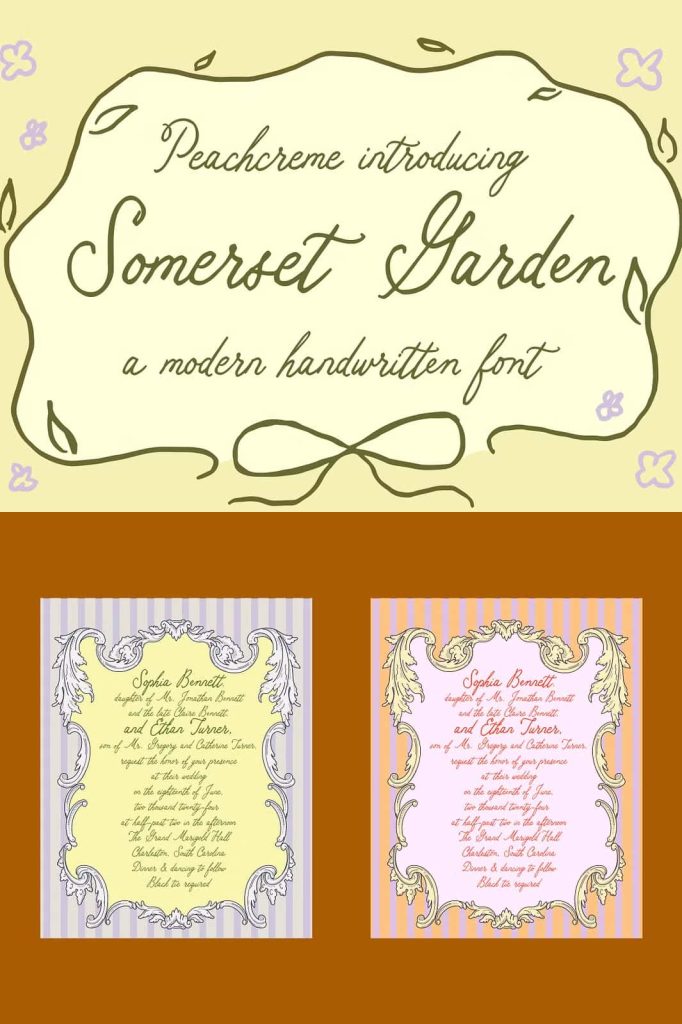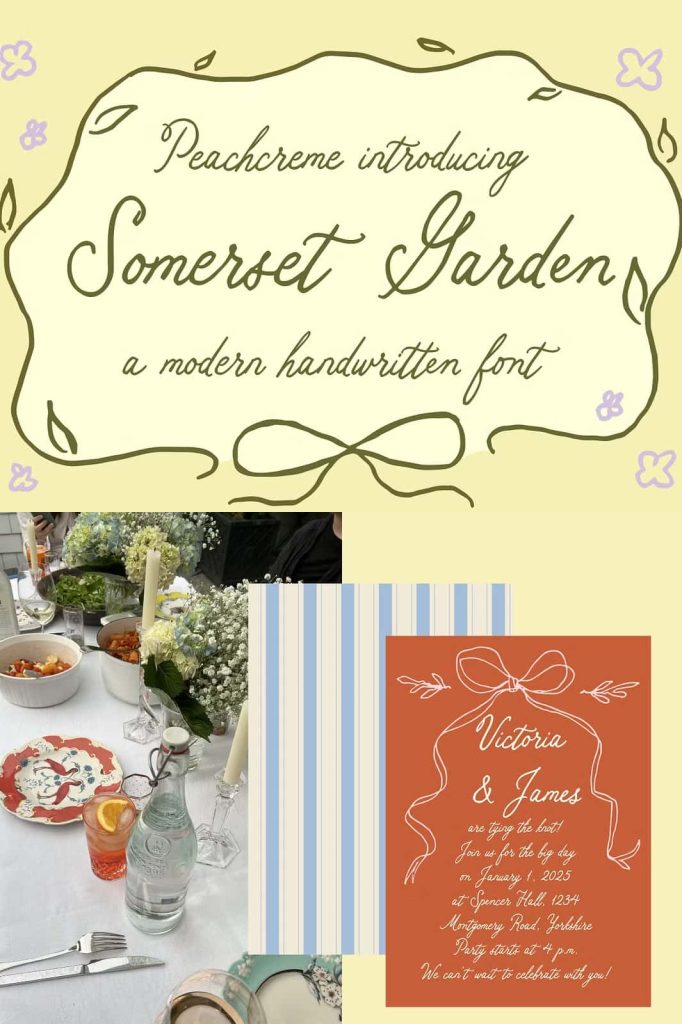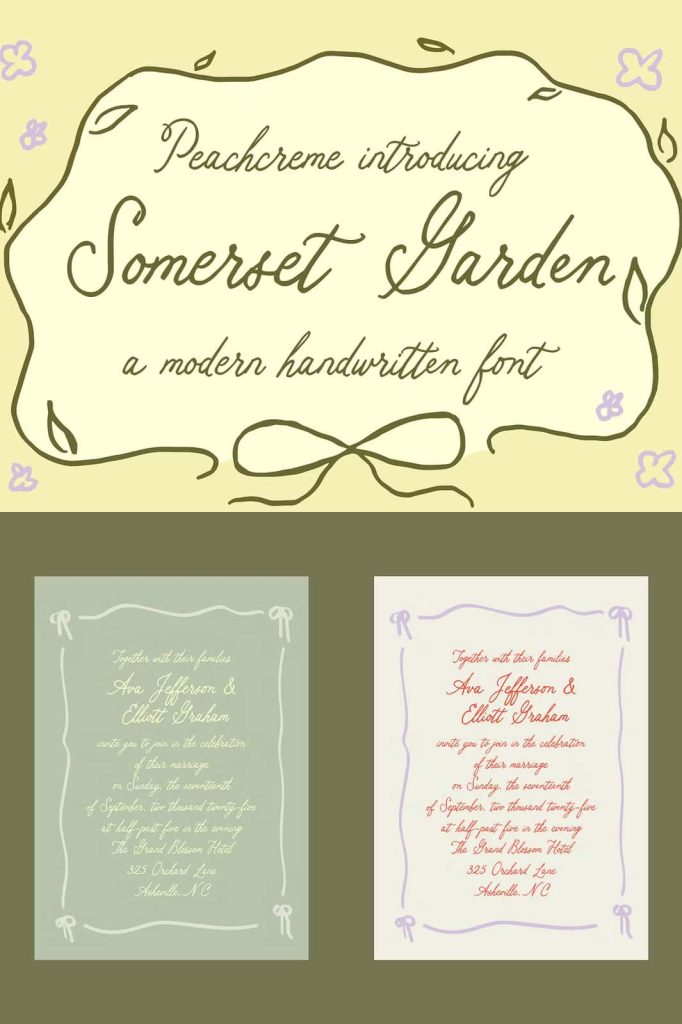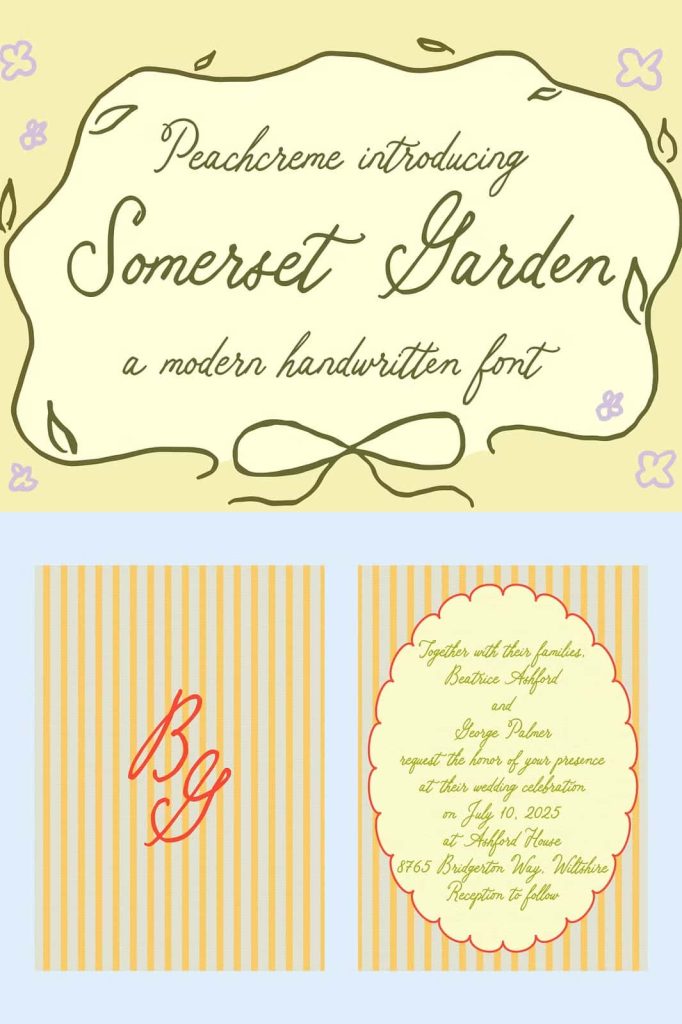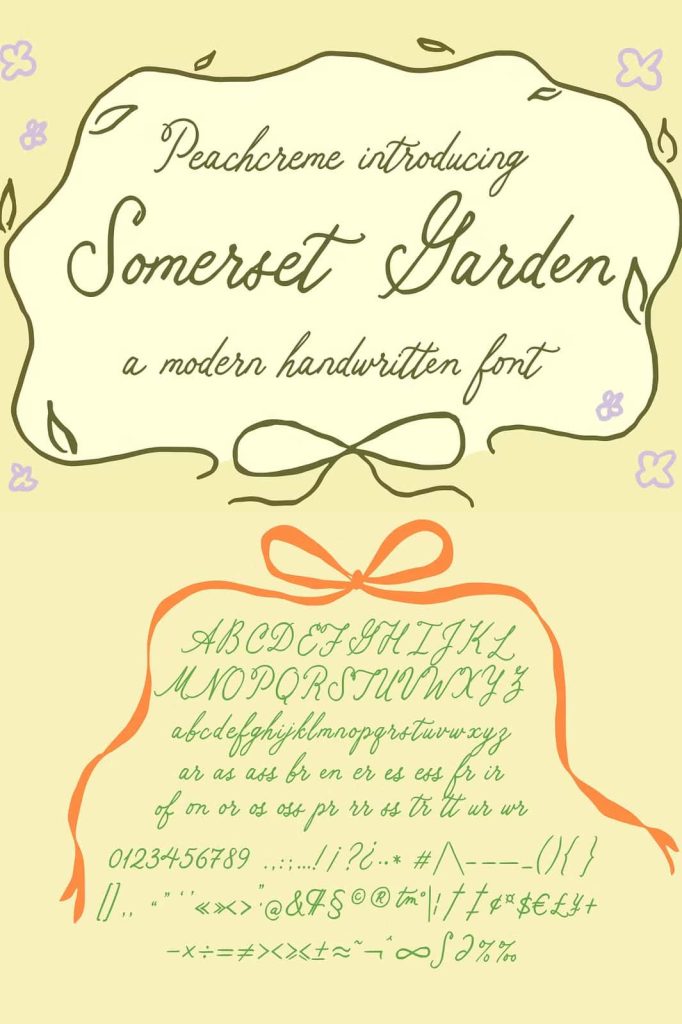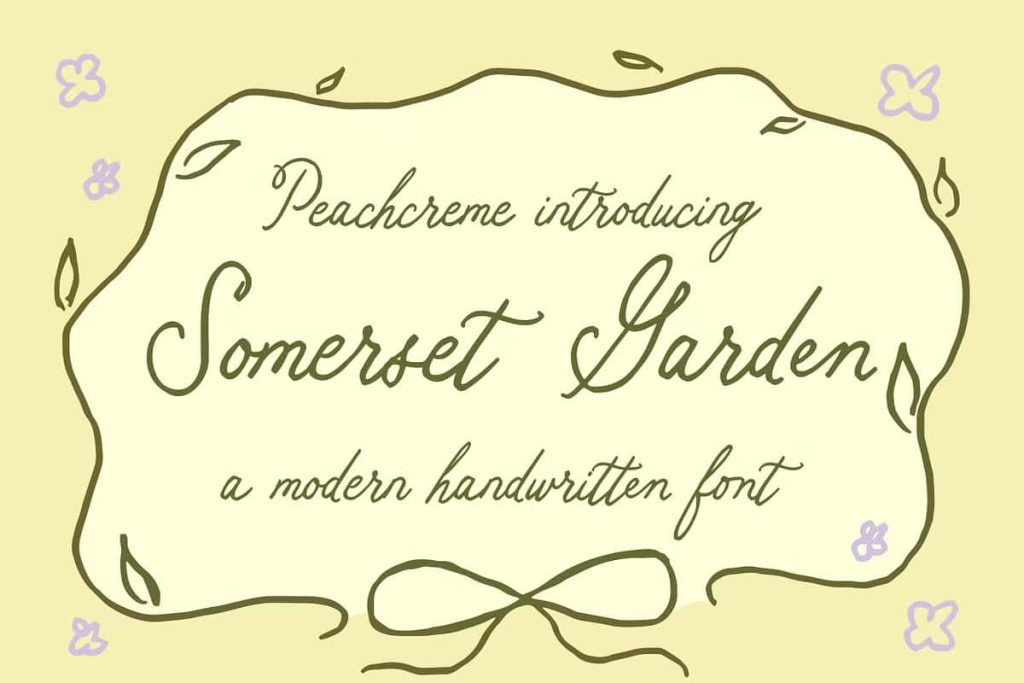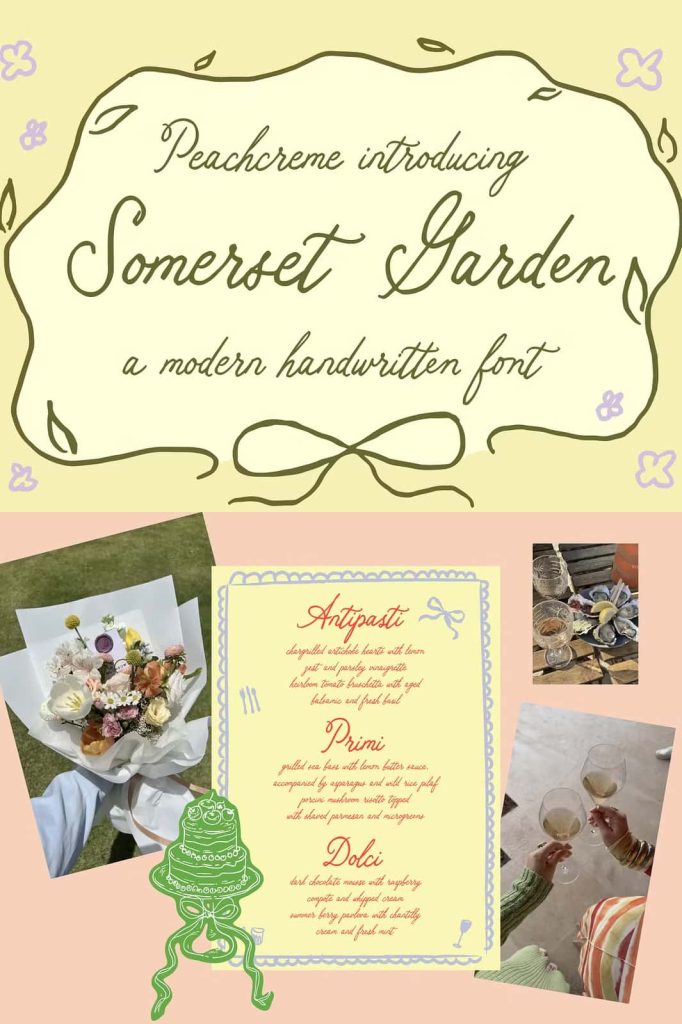
Somerset Garden Handwritten Font
Somerset Garden is a delightfully quirky handwritten font designed to bring personality, warmth, and playful charm into modern typography. Inspired by natural penmanship and spontaneous handwriting, this font introduces a lighthearted and expressive style that instantly makes designs feel more personal and engaging.
The typeface captures the beauty of handwritten letters while maintaining clarity and readability. Each character carries a gentle irregularity that reflects the authentic movement of a pen on paper. This design approach helps Somerset Garden stand out from more rigid fonts, making it ideal for projects that require a friendly and creative visual tone.
Designers who want to create typography that feels inviting, unique, and expressive will find Somerset Garden to be a valuable addition to their font collection. The playful structure and natural strokes give the font a distinctive character that works beautifully across a wide range of creative applications.
A Playful and Quirky Handwritten Style
Somerset Garden embraces the joyful imperfections of handwritten lettering. Instead of focusing on strict symmetry, the font celebrates playful variations that make the text feel lively and authentic. Each character features gentle curves and organic strokes that resemble casual handwriting.
This playful approach allows designers to create typography that feels natural and approachable. The irregular shapes add personality without sacrificing readability, making the font suitable for both decorative and practical uses.
The quirky personality of Somerset Garden makes it especially appealing for designs that aim to communicate creativity, warmth, and friendliness. It brings an artistic touch that helps text feel more human and expressive.
Natural Penmanship Inspired Design
The design of Somerset Garden draws inspiration from everyday penmanship. The letters appear as though they were written by hand with relaxed movements and spontaneous strokes. This natural rhythm creates a comfortable reading experience while preserving the unique charm of handwritten text.
Designers can use this feature to create layouts that feel personal and inviting. The font adds authenticity to projects that benefit from a handmade or crafted aesthetic.
Perfect for Wedding and Special Occasion Designs
Somerset Garden works beautifully in designs that celebrate meaningful moments and personal connections. Wedding invitations, greeting cards, and special event stationery often require typography that feels warm and heartfelt. This font delivers exactly that through its soft strokes and friendly character shapes.
The handwritten style complements romantic and celebratory themes while adding a subtle decorative touch. Designers can use Somerset Garden to highlight names, quotes, or important details within wedding materials.
Because the font feels both elegant and playful, it adapts easily to different wedding themes, from rustic outdoor ceremonies to modern minimalist celebrations.
Ideal for Invitation and Card Design
Invitation designers often look for fonts that communicate intimacy and charm. Somerset Garden provides the perfect balance between decorative style and readability. The handwritten look helps invitations feel more personal, while the clear structure keeps the message easy to read.
This combination allows the font to elevate the emotional tone of special event designs.
Great for Creative Branding
Beyond wedding stationery, Somerset Garden also performs exceptionally well in branding and personal identity design. Many modern brands aim to appear approachable, friendly, and authentic. Handwritten typography helps achieve this goal by creating a more human connection with audiences.
Somerset Garden introduces a charming personality that works well for creative businesses, lifestyle brands, handmade product lines, and boutique shops. The playful character of the font can transform simple logos or brand messages into memorable visual elements.
Designers can pair this font with minimal layouts or natural color palettes to create modern brand identities that feel warm and welcoming.
Authentic Visual Identity
Brands that emphasize creativity and individuality often benefit from handwritten typography. Somerset Garden helps communicate these qualities through its expressive letterforms and relaxed structure. The font feels approachable and genuine, which strengthens the emotional connection between brand and audience.
Versatile Font for Many Creative Projects
Somerset Garden offers versatility that allows it to perform well across a variety of design categories. Its playful style fits naturally within creative layouts where personality and charm are essential.
Designers can use this font in both digital and print environments to create engaging visual experiences.
Popular Design Applications
Somerset Garden works particularly well in projects such as:
For designers seeking a handwritten font that balances playful charm with practical versatility, Somerset Garden provides an inspiring solution that enhances both creative expression and visual communication.